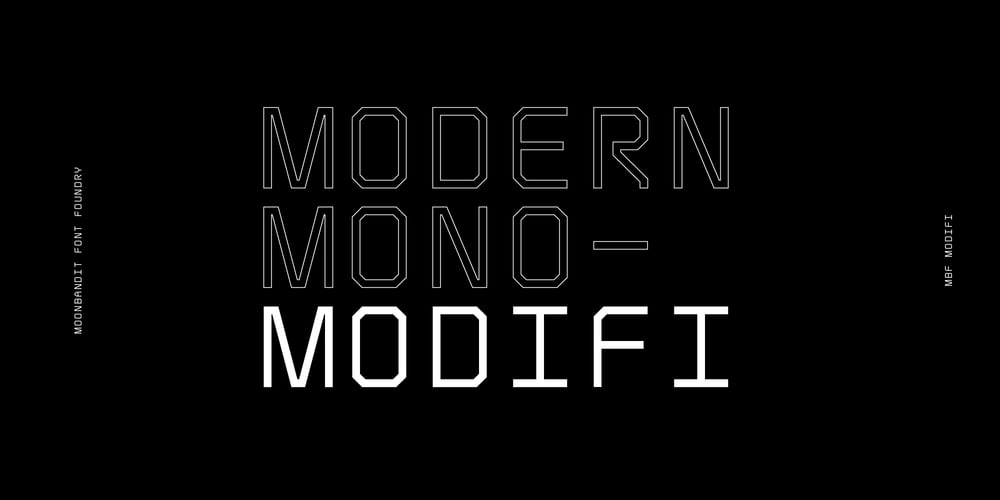
MBF Modifi Font Family was designed by Bramaji Dipa Manggala and published by Moonbandit. MBF Modifi contains 1 styles and family package options. Modifi is a straight cut modern monospace font. This typeface is inspired by the digital monotone living in urban lifestyle. Modifi has a few alternates to supply you with variety in your work and is perfect as a headline, title, branding, logo and many others.